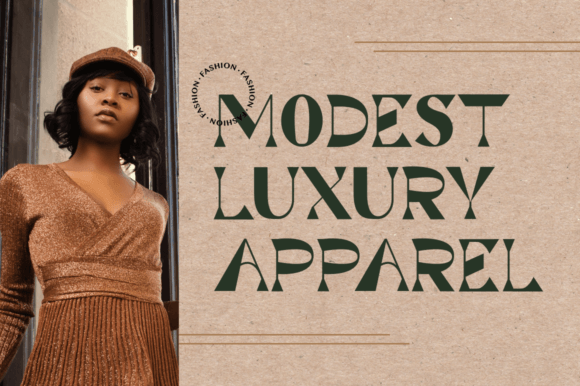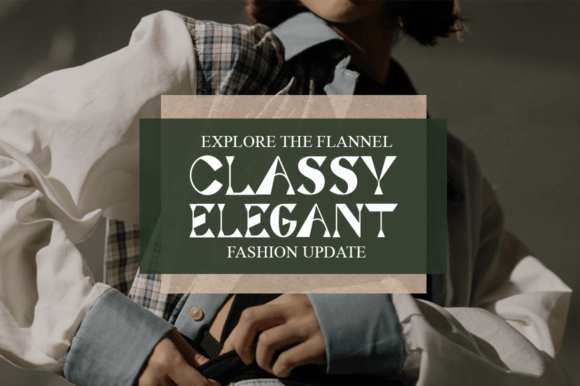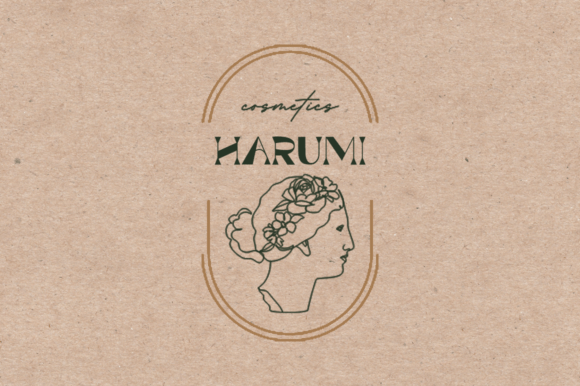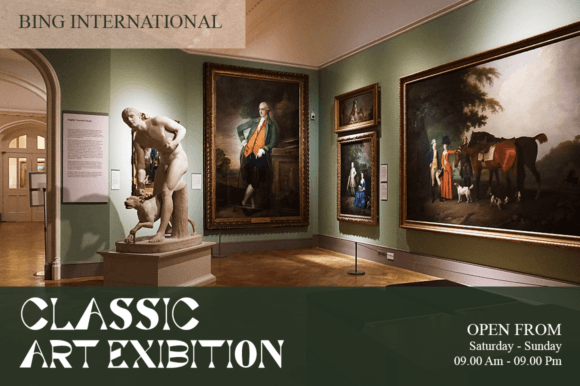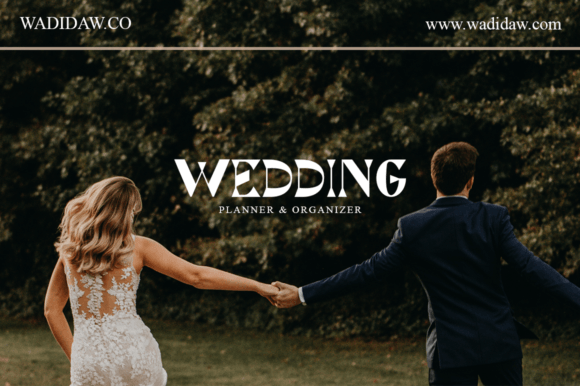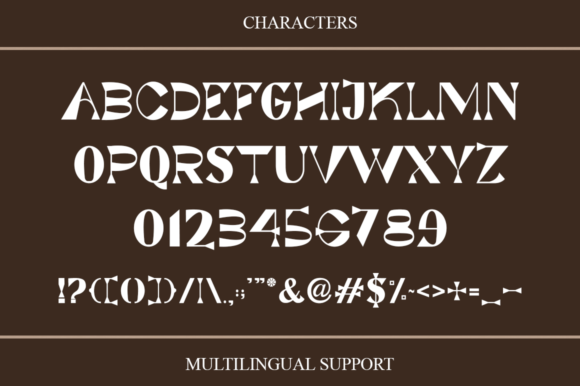
Bener Font: Elevate Your Designs with Elegance and Boldness
Are you looking for a font that exudes sophistication, elegance, and boldness? Look no further than Bener Font! This stunning serif font is perfect for designers and crafters who want to add a touch of luxury to their creations. With its incredibly versatile style, Bener Font is ideal for a wide range of projects, from wedding invitations and stationary art to social media posts and more.
The Characteristics of Bener Font
Bener Font is a beautifully crafted serif font that boasts an elegant and bold style. Its classic design makes it perfect for projects that require a touch of sophistication and refinement. The font’s versatility is one of its standout features, allowing you to use it for a variety of applications, from formal to informal.
Whether you’re creating wedding invitations, business cards, or social media graphics, Bener Font is sure to make a statement. Its bold and elegant style ensures that your designs will stand out from the crowd, grabbing the attention of your audience and leaving a lasting impression.
What Makes Bener Font So Versatile?
Bener Font’s versatility can be attributed to its unique combination of elegance and boldness. The font’s classic design ensures that it will never go out of style, while its boldness adds a modern touch that’s perfect for contemporary designs.
Here are just a few examples of the many ways you can use Bener Font:
- Wedding Invitations: Create stunning wedding invitations that set the tone for the big day. Bener Font’s elegant and bold style is perfect for formal wedding invitations, and its versatility ensures that you can customize it to fit your wedding theme.
- Stationary Art: Add a touch of luxury to your stationary art with Bener Font. From business cards to letterheads, this font is sure to make your designs stand out.
- Social Media Posts: Create eye-catching social media posts that grab the attention of your audience. Bener Font’s bold and elegant style is perfect for creating stunning graphics that will help you stand out in a crowded feed.
- Packaging Design: Use Bener Font to create beautiful packaging designs that reflect your brand’s personality. From product labels to packaging inserts, this font is sure to add a touch of sophistication to your designs.
Why Choose Bener Font?
With so many fonts to choose from, why should you choose Bener Font? Here are just a few reasons why Bener Font stands out from the crowd:
- Unique Style: Bener Font boasts a unique combination of elegance and boldness that’s hard to find in other fonts.
- Versatility: This font is incredibly versatile, making it perfect for a wide range of projects and applications.
- Easy to Read: Despite its bold style, Bener Font is easy to read, making it perfect for body text and headlines.
- High-Quality: Bener Font is a high-quality font that’s designed to deliver exceptional results.
Tips for Using Bener Font
Here are a few tips for getting the most out of Bener Font:
- Experiment with Font Sizes: Bener Font looks great in a variety of font sizes, from large headlines to smaller body text.
- Pair it with Other Fonts: Bener Font pairs well with other fonts, making it easy to create stunning font combinations.
- Use it for Headlines and Titles: Bener Font is perfect for headlines and titles, where its bold and elegant style can really shine.
Bener Font is a stunning serif font that’s perfect for designers and crafters who want to add a touch of elegance and boldness to their creations. With its incredibly versatile style, Bener Font is ideal for a wide range of projects, from wedding invitations and stationary art to social media posts and more. Whether you’re looking to create something formal or informal, Bener Font is sure to deliver exceptional results.